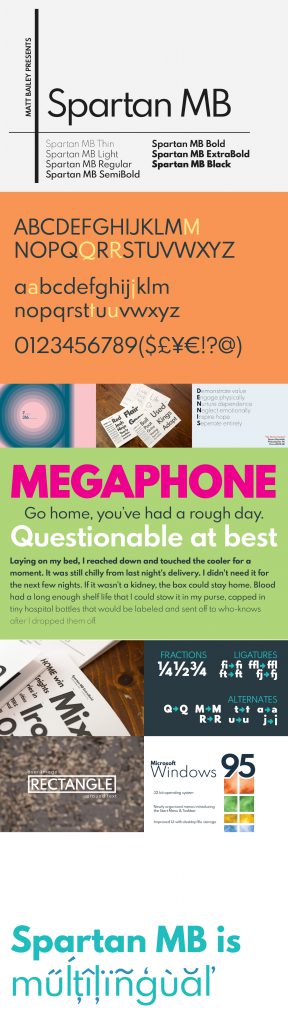
Spartan Typeface: Open Source Font Family
Spartan MB, from Matthew Bailey, is a free, open source font family based on League Spartan.
This modern geometric typeface includes 7 weights – thin, light, regular, semibold, bold, extra bold, black – fractions, ligatures, alternates and it’s multilingual.